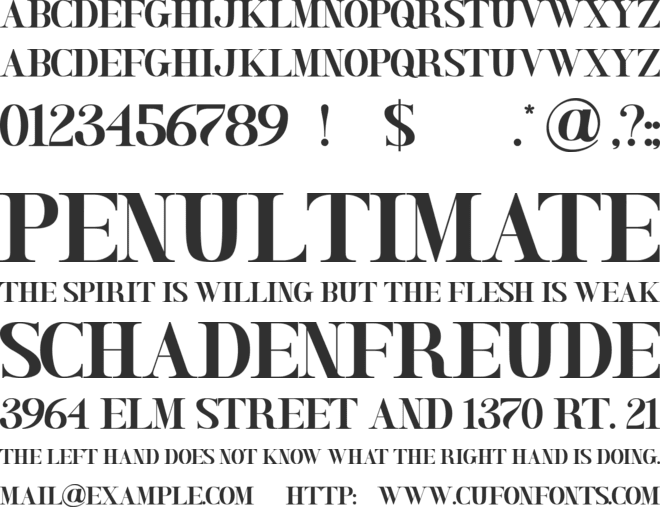
Serif typefaces tend to be thought of as classic and traditional whereas sans serif typefaces are thought of as more modern and contemporary.
Serif font examples. 20 stunning examples by marc schenker on aug 18 2020 in design trends tweet this share this serif fonts are seen as decorative but some believe that their short projections at the ends of letters actually help reading speed and overall readability. Bold serif fonts in web design. Samples of serif typefaces typeface name example 1 example 2 example 3 adobe jenson designer. Keep it to 2 fonts for a ratio of serif vs sans serif fonts one of each is probably enough.
Alternatively you could pick a serif font family and choose different weights for your headline sub headlines and body text. Guenter gerhard lange class. Examples of serif fonts. Examples of designs using serif.
Wrapping up the difference between serif and sans serif fonts. Need to add one or more fonts to a serif font you like. Sans literally means without so a sans serif font does not include any extra stroke at the ends of the letters. Weve talked a lot about print design.
This list of samples of serif typefaces details standard serif fonts used in printing classical typesetting and printing. Many modern designers combining serif and sans serif fonts for a balanced look. The fine details of serifs especially the more delicate and high contrast designs dont always display well on screens especially at small sizes on low resolution displays. This is a heading.
This works well as the two fonts create a contrast that holds the users attention. Try sans serif in large sizes. This is a paragraph. This is a heading.
Its a quick and elegant solution to font pairing for the web. Samples of sans serif typefaces typeface name example 1 example 2 example 3 agency fb designer. Examples of sans serif fonts. Dont mix too many fonts in the one design.